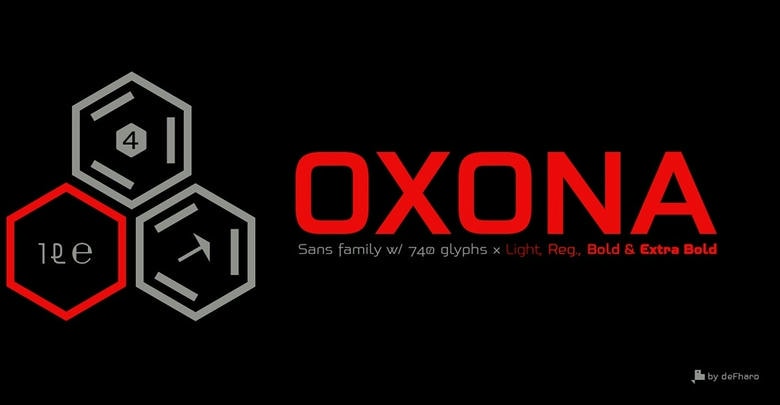
Oxona Font
Oxona is a futuristic sans serif with 4 weights, meticulously calculated square proportions that aims to redefine readability and visual impact. Every stroke, every curve and every angle has been polished to achieve a perfect balance between absolute clarity and aesthetic boldness due to its cleanliness, modernity and functionality, the geometric structure and its subtle optical adjustments that generate great harmony and make it a unique typeface, as rational as it is expressive.
Oxona Sans Serif Roman Font